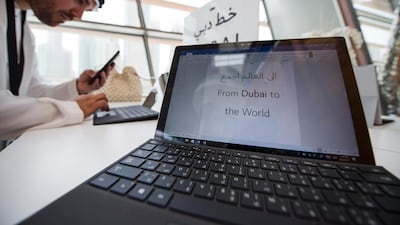
I am very happy about Dubai's new font (Dubai Font: Sheikh Hamdan unveils Microsoft's first font to be created for a city, April 30). This is excellent news as it demonstrates the rising attention to typography and design in the UAE. Moreover, the typeface created by Nadine Chahine is quite beautiful.
The article’s headline, however, is not correct. Many other cities around the world had their own typefaces specifically designed for them. A trend that actually started a couple of millennia ago in a city called Rome.
Can we please stop it with the misleading headlines? Dubai is not the first city to get its own font worldwide nor even the first city in the Middle East. Amman was branded with its own logo back in 2009.
I think that the font is modern and a chic form of branding. Dubai is to be commended for this leadership.